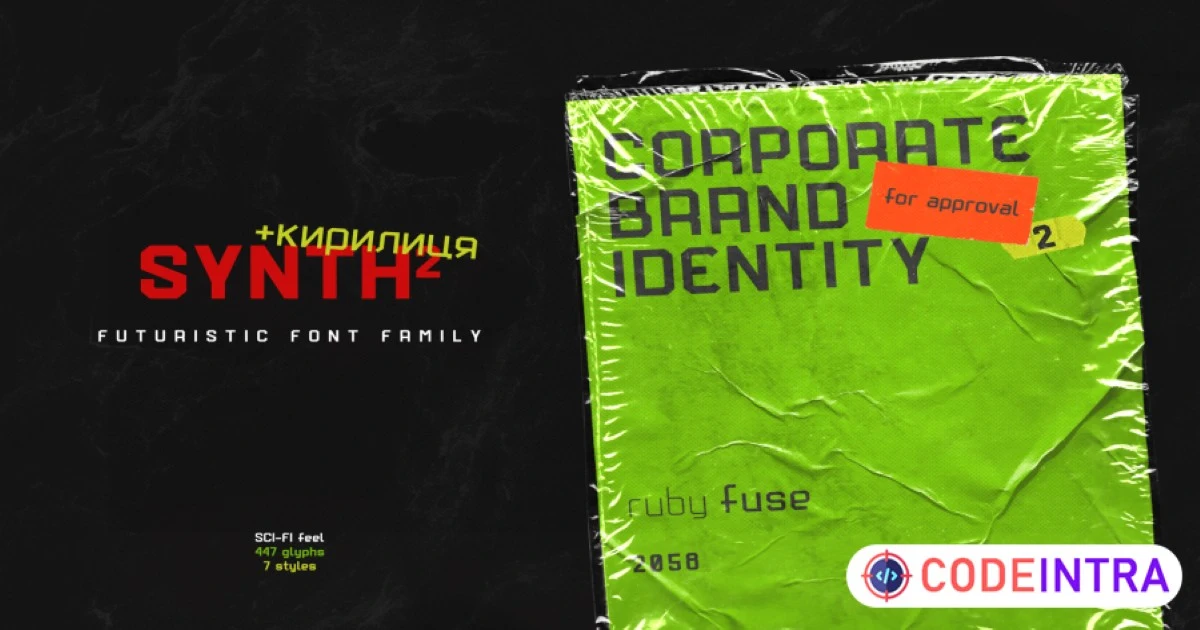
The font has a truly futuristic nature. It perfectly conveys the atmosphere of technology and futurism and it's the best choice for sci-fi and hi-tech topics and pictures.
The font letters are unrounded, its build is consistent and straight.
The font includes 7 styles: thin, extra light, light, regular, medium, bold, and black. With the variety of font widths, there is the ability to make different combinations in graphic or web design projects as well. Carefully kerned letters look good in paragraphs and titles. Special attention to uppercase headings. Synth2 Regular supports Cyrillic.
The font counts 477 glyphs for each style. The thin style is free to use.